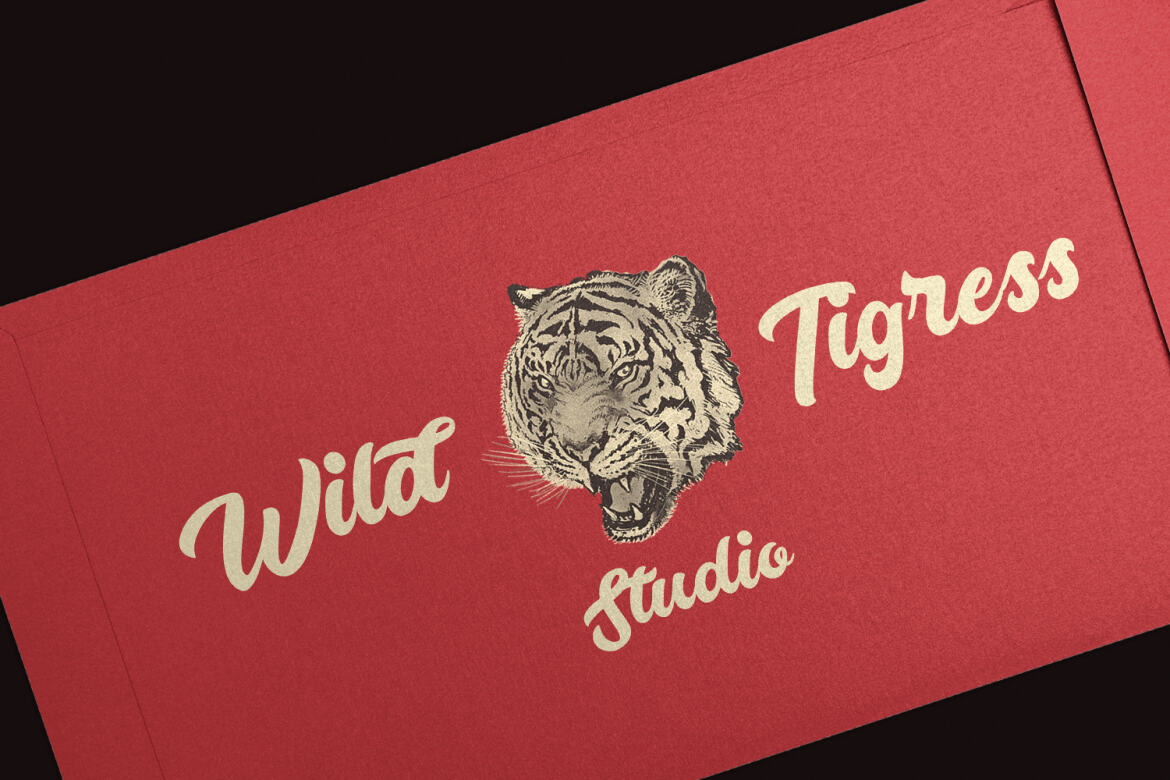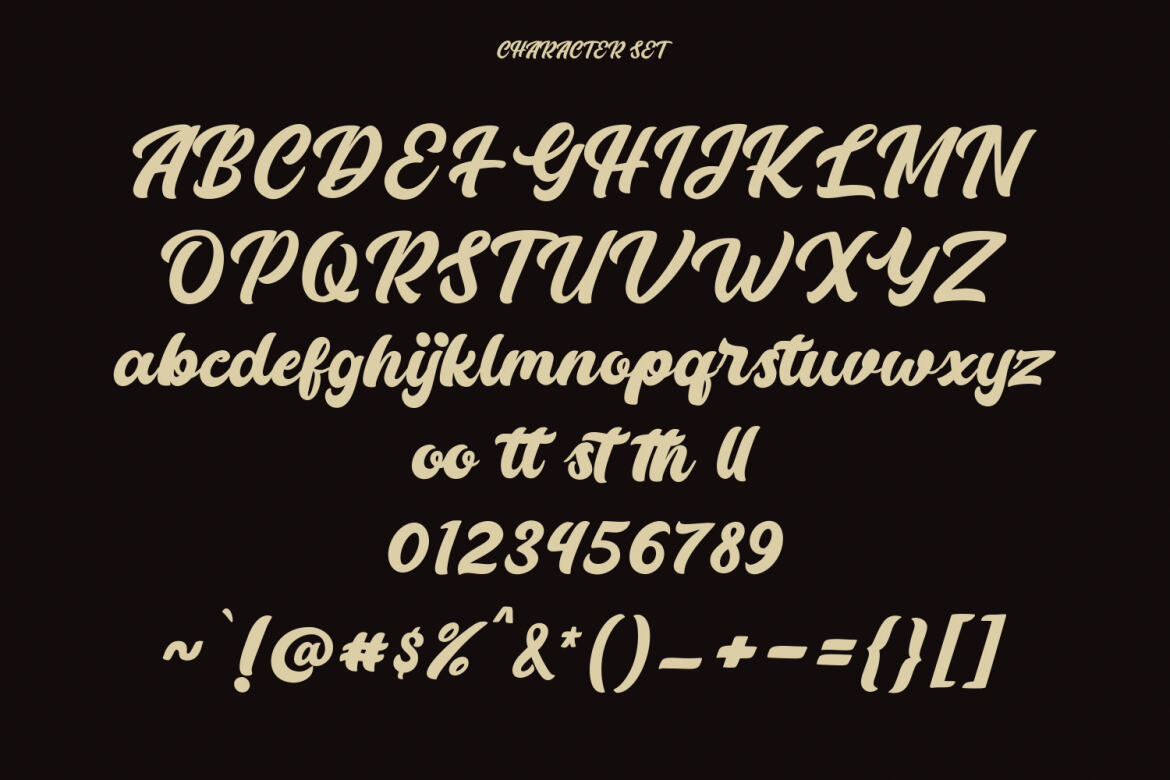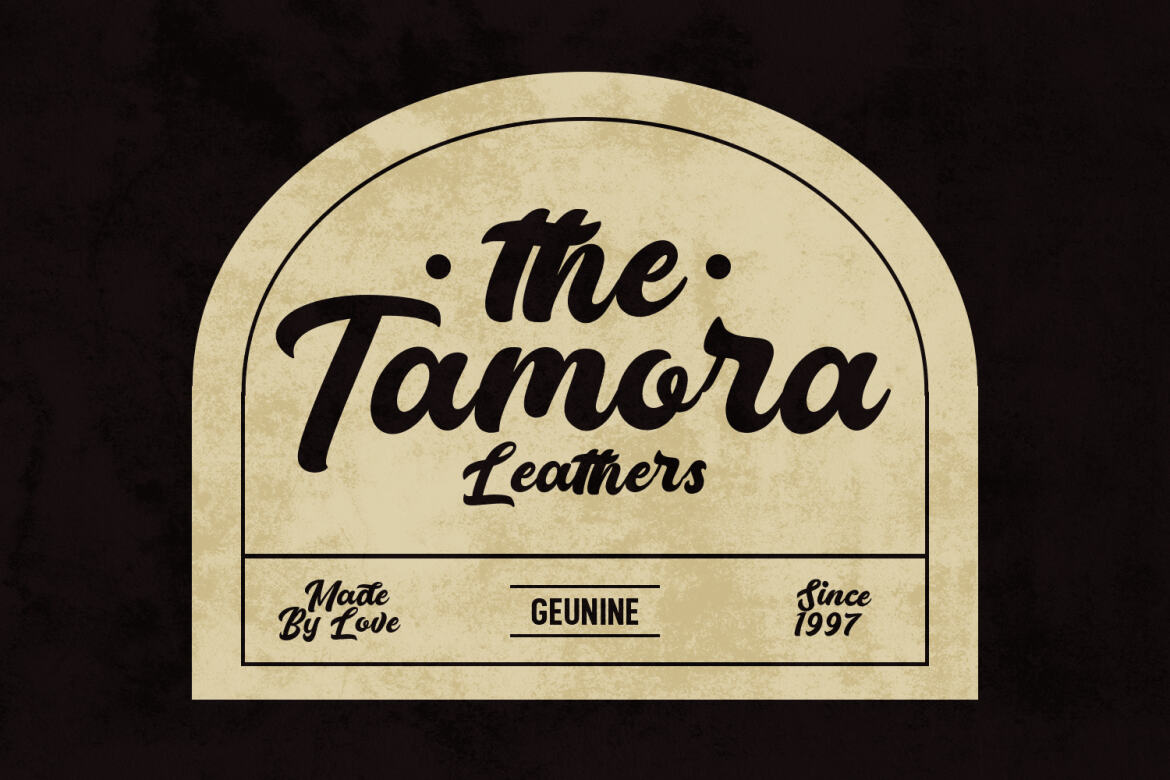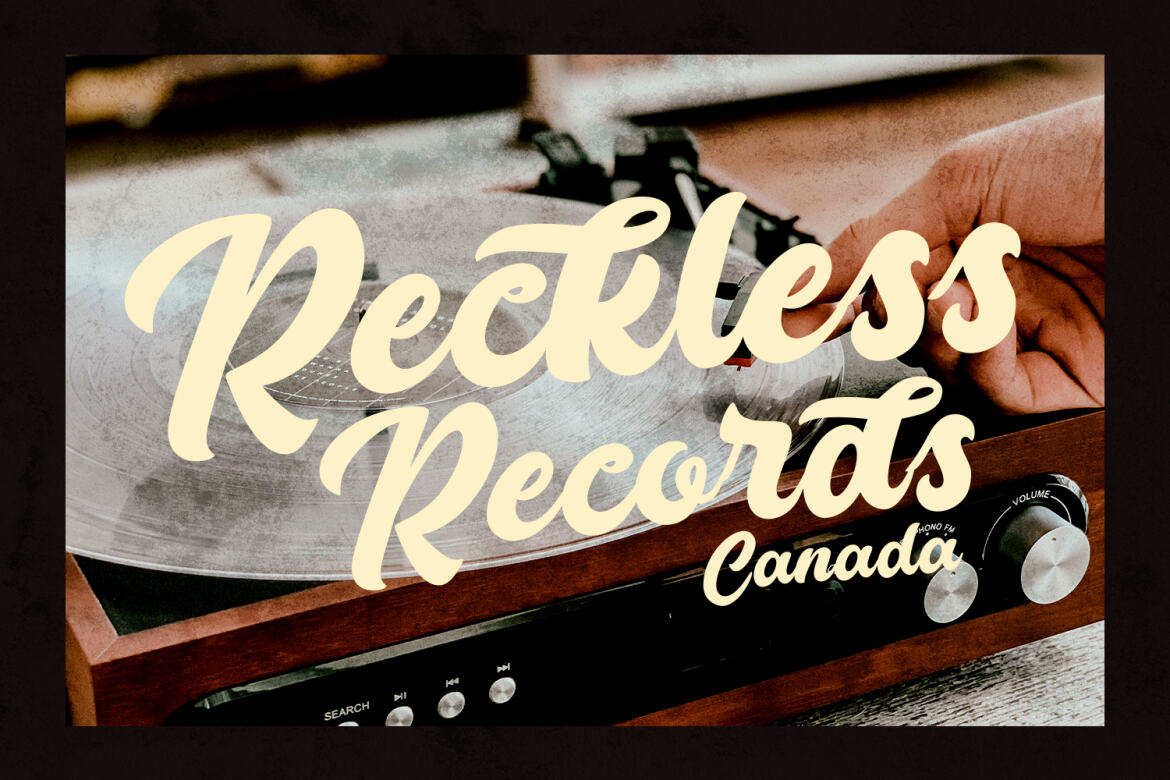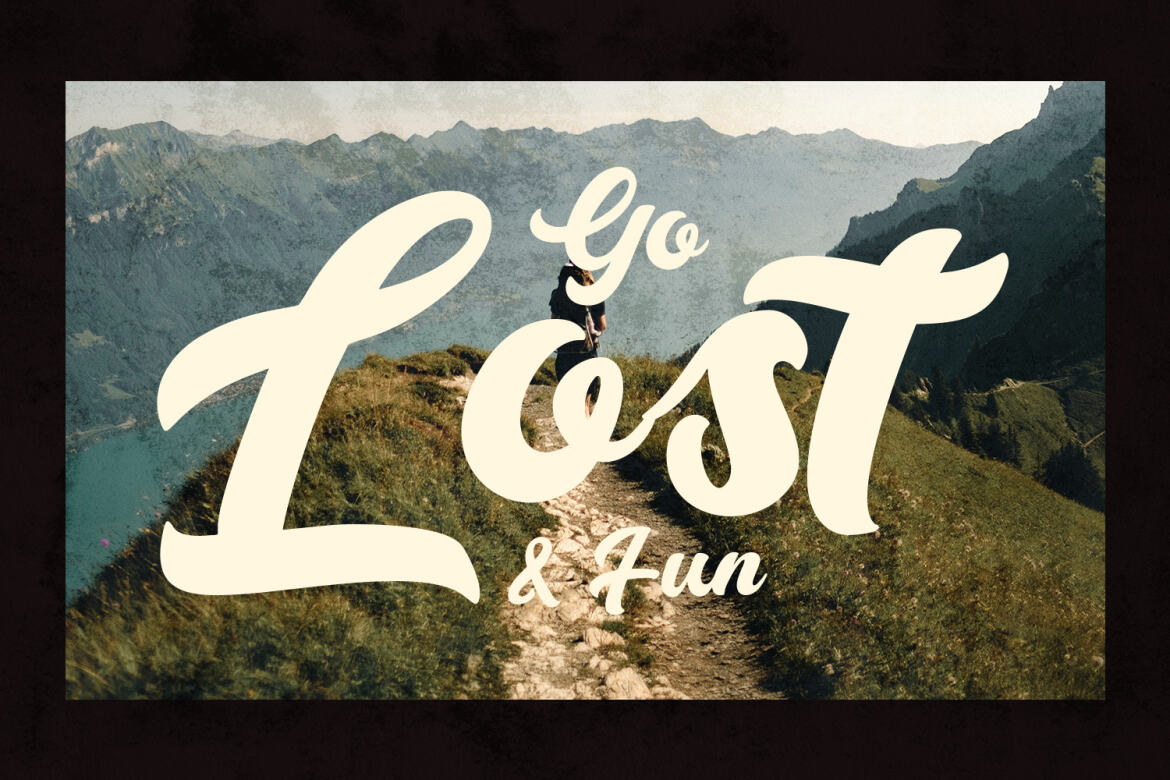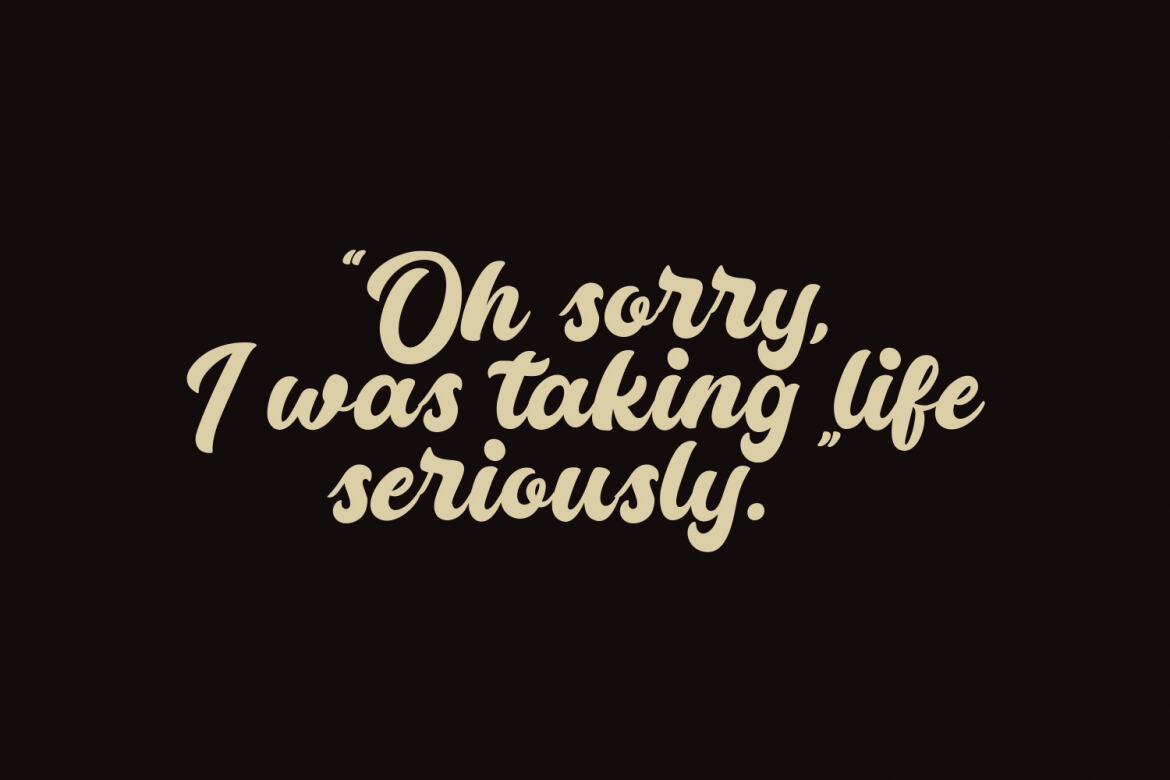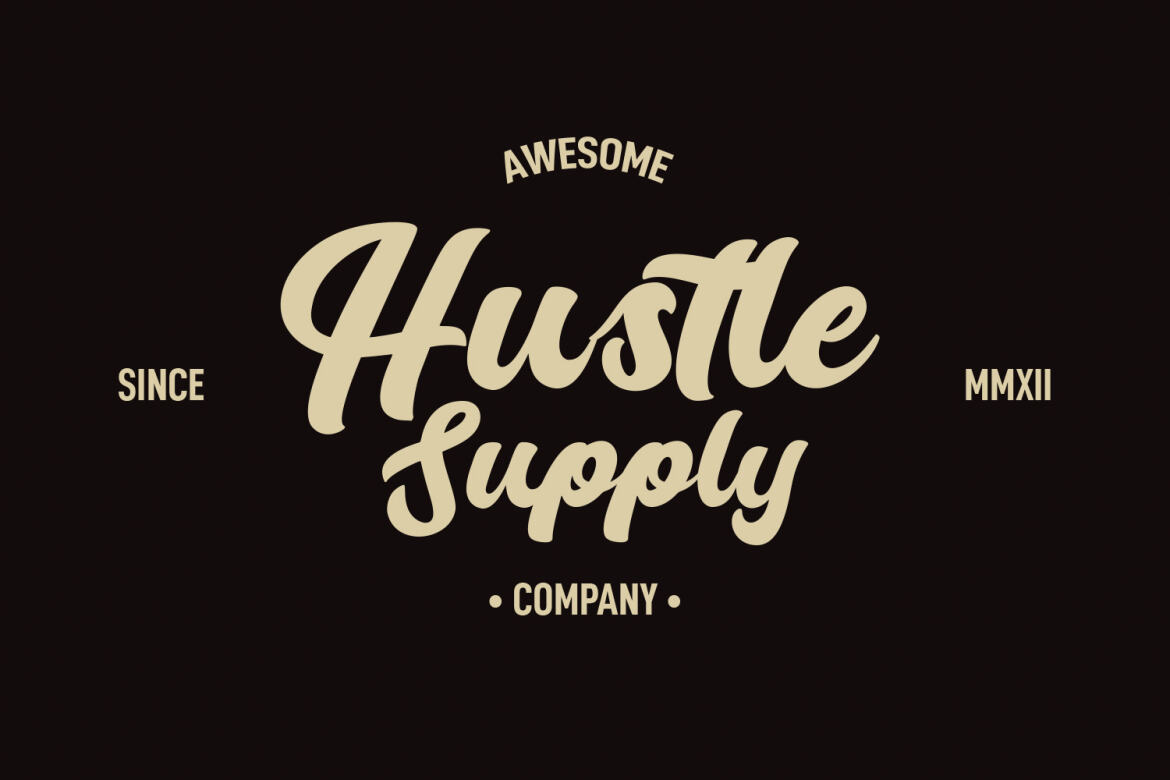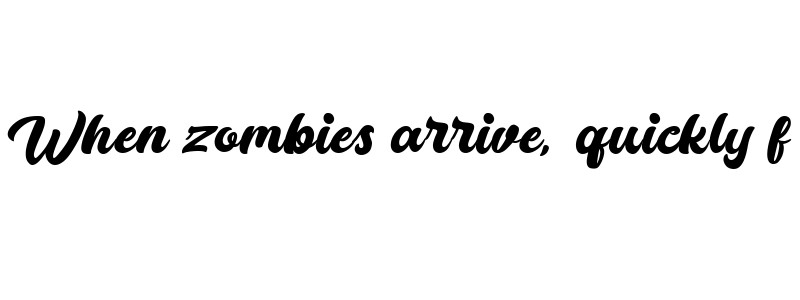
Ginghart Retro FREE Script Font
Ginghart
Ginghart is a fancy handwritten script font. With medium contrast stroke, fun character with a bit of ligatures and alternates. To give you an extra creative work. Ginghart font support multilingual more than 100+ language. This font is good for logo design, Social media, Movie Titles, Books Titles, a short text even a long text letter and good for your secondary text font with sans or serif. Make a stunning work with Ginghart font.